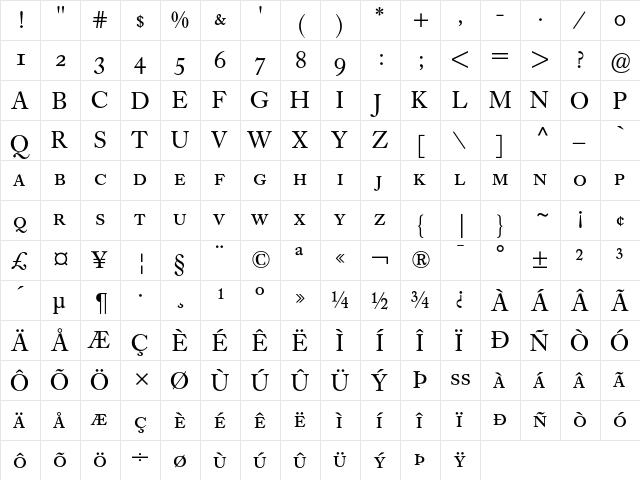
Caslon Book BE Regular Small Caps & Oldstyle Figures
Design Context for Caslon Book BE Typeface
Caslon Book BE brings classic typographic sensibility to the table — its serifs and measured letterforms reflect centuries of print heritage.
Pro Tip: Set Caslon Book BE with slightly loose tracking in headlines to let each letterform's detail read clearly at display sizes.